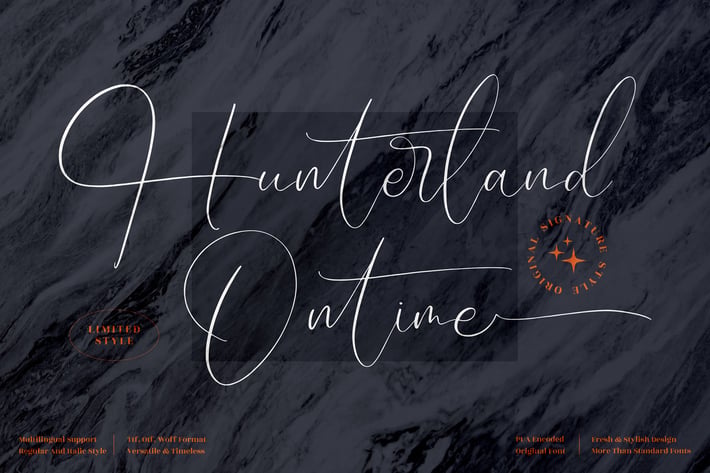
Hunterland Ontime Signature Font
Hunterland Ontime Signature Font is a modern and elegant handwritten script that brings a luxurious touch to your creative projects. With its flowing lines, timeless appeal, and versatile style, this font is perfect for elevating both digital and printed designs. It blends sophistication with readability, making it suitable for professional branding and personal projects alike.
+ Versatile and Timeless Design
+ Elegant Handwritten Script
+ Branding and Logo Design
+ Wedding Invitations
+ Fashion and Lifestyle Projects
+ Social Media Content
+ Editorial and Print Design
Make your signature style stand out with Hunterland Ontime—where elegance meets timeless design.